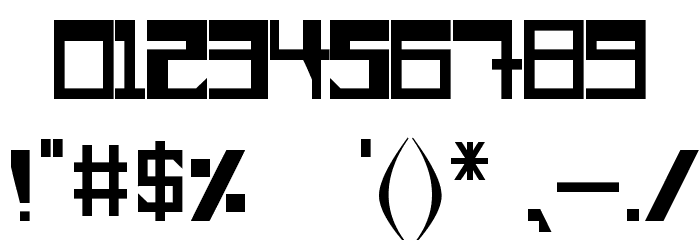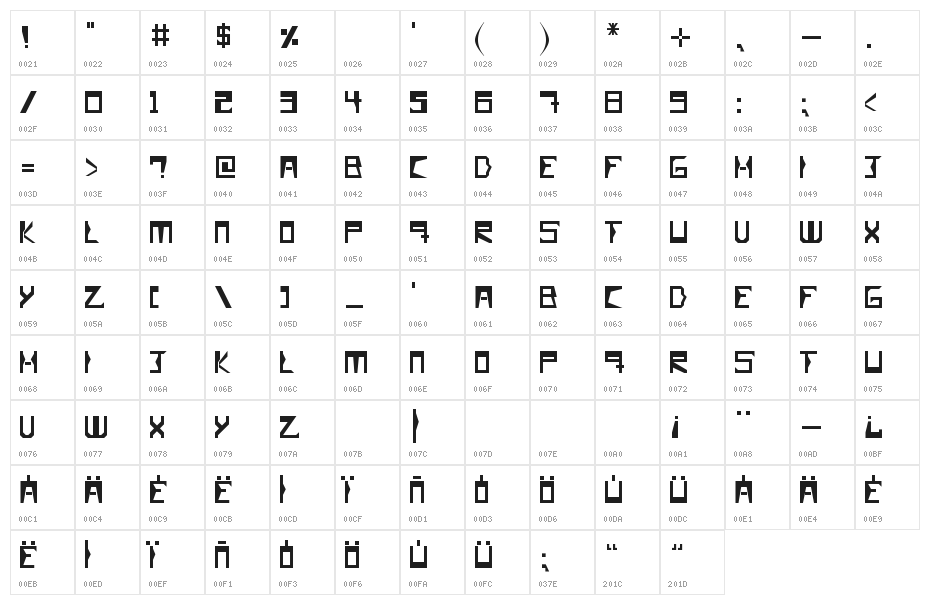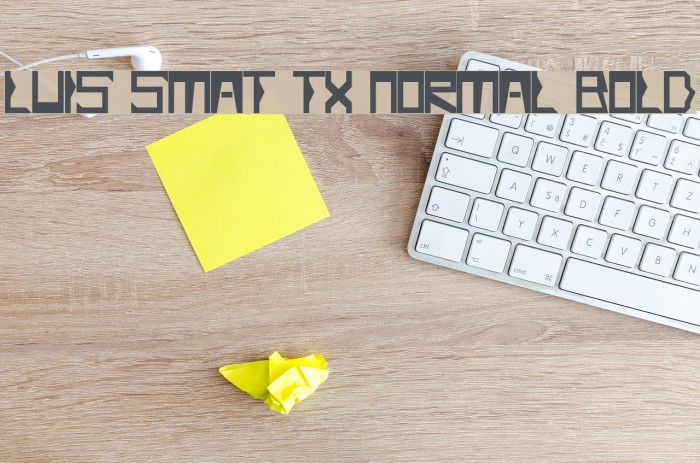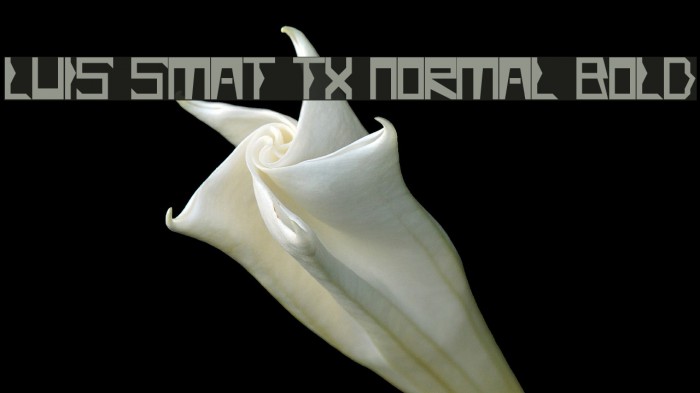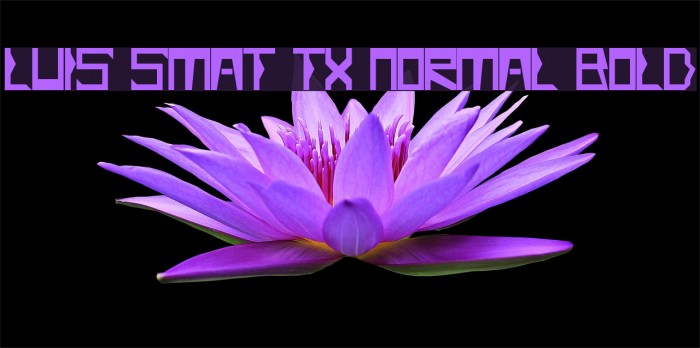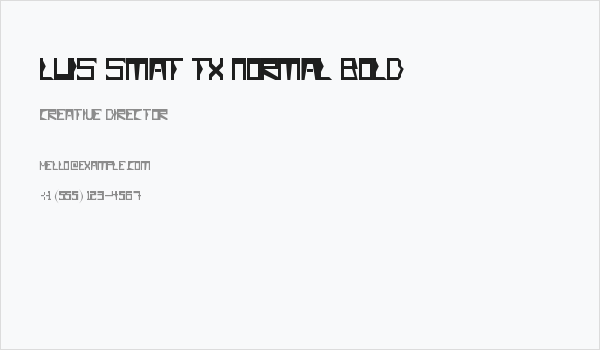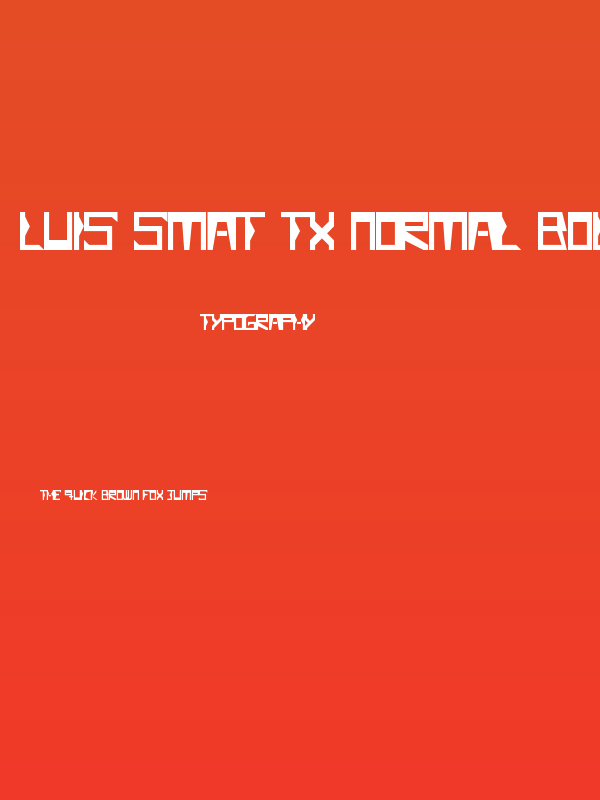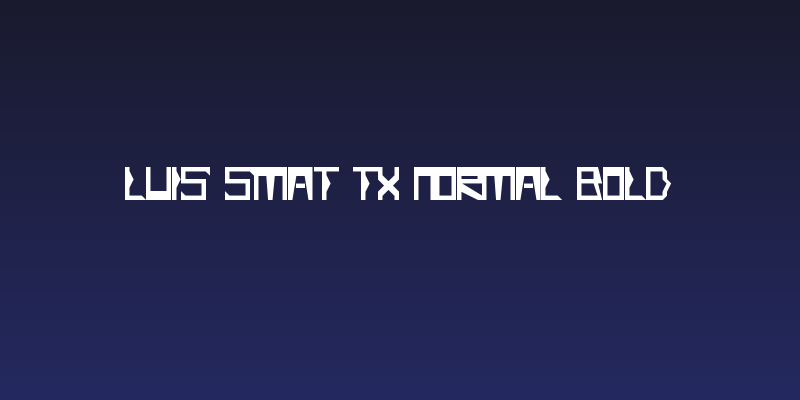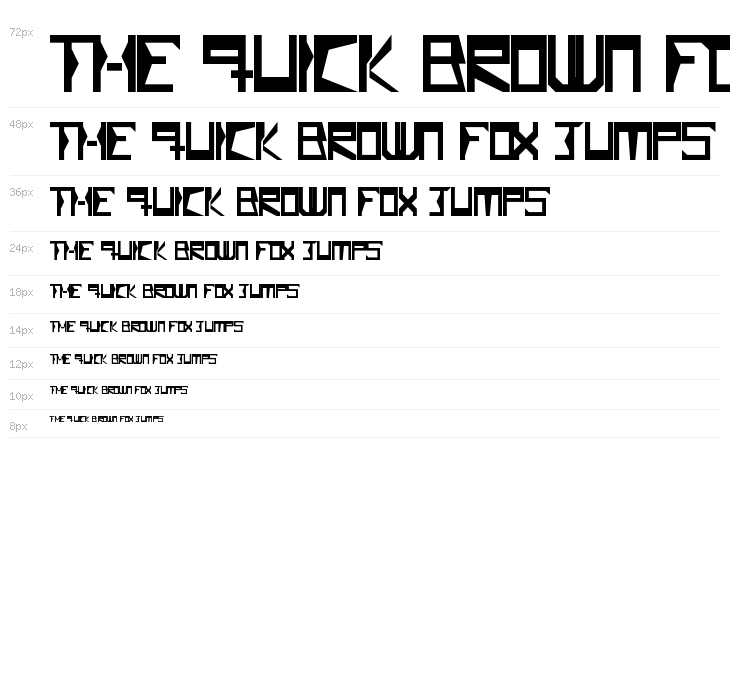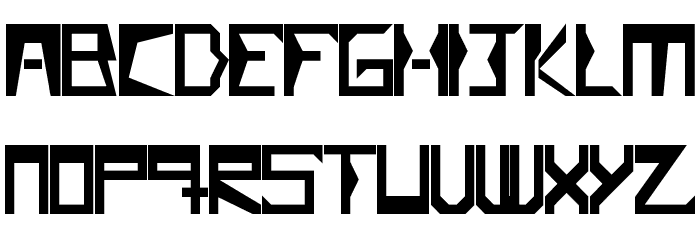
Luis Smat TX Normal Bold Font
Luis Smat TX Normal Bold Description
This font features a bold, geometric design with sharp angles and a futuristic aesthetic. The characters are constructed with a mix of straight lines and angular cuts, creating a dynamic and edgy appearance. The uppercase letters are particularly striking, with unique shapes that give each character a distinct personality. The numerals and special characters maintain this bold style, ensuring consistency across all glyphs. The overall look is modern and assertive, making it suitable for projects that require a strong visual impact.
| Proposed Projects | Ideal for sci-fi themed designs, video game titles, posters, and branding that requires a modern, edgy look. |